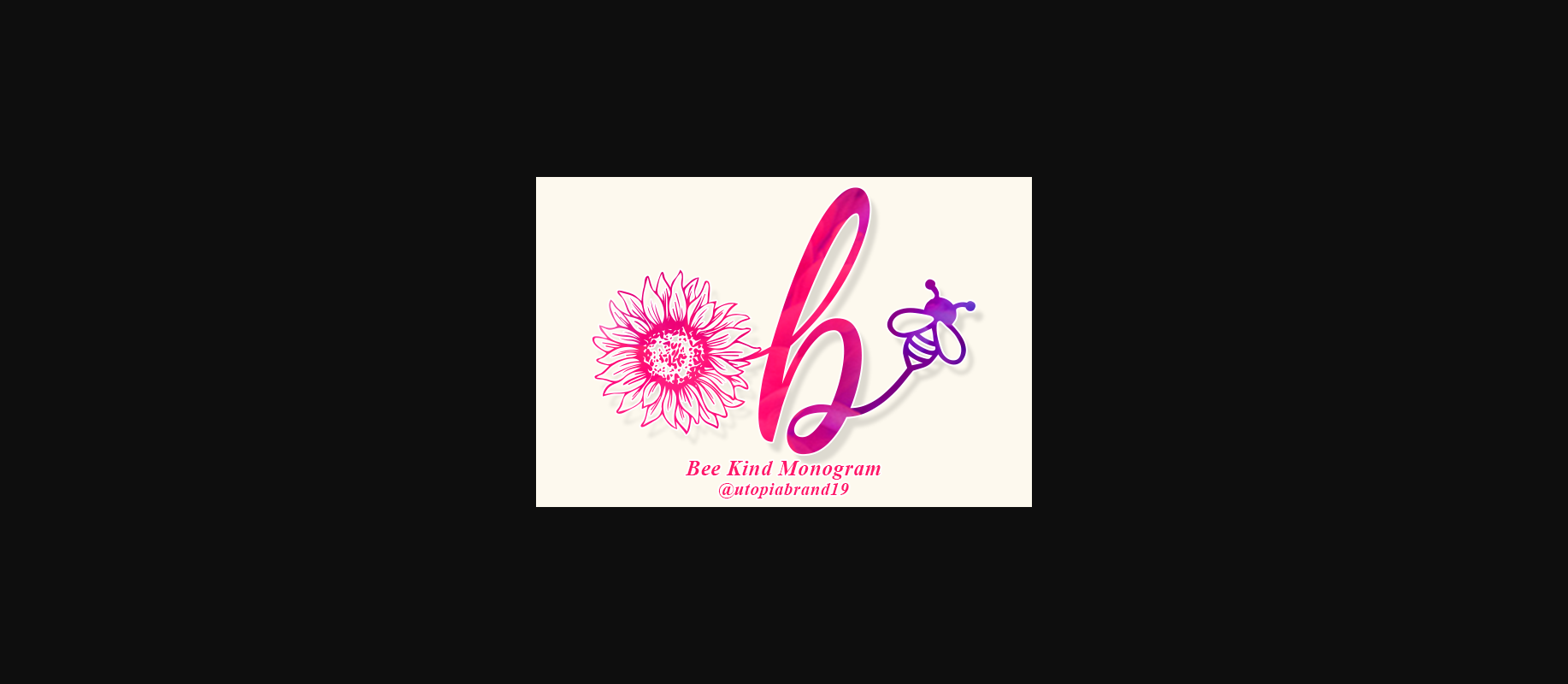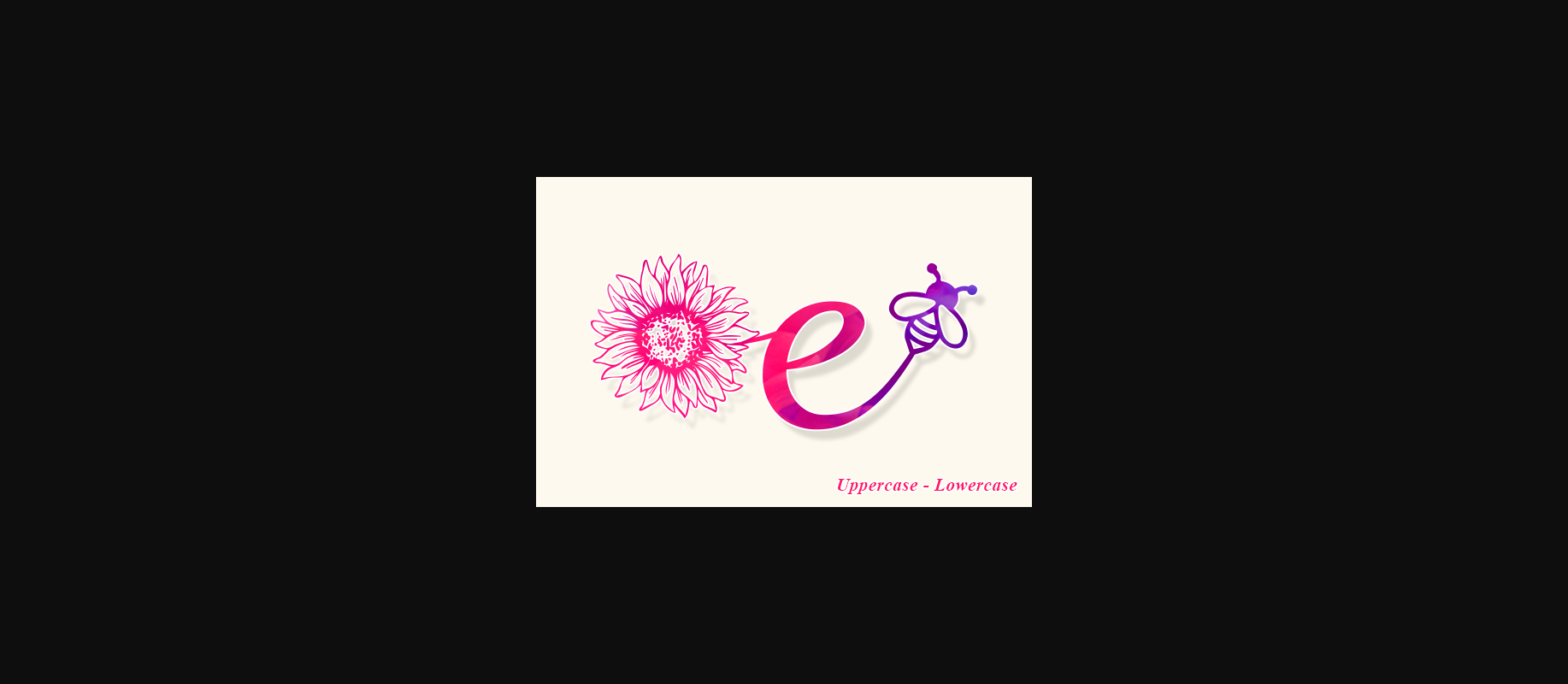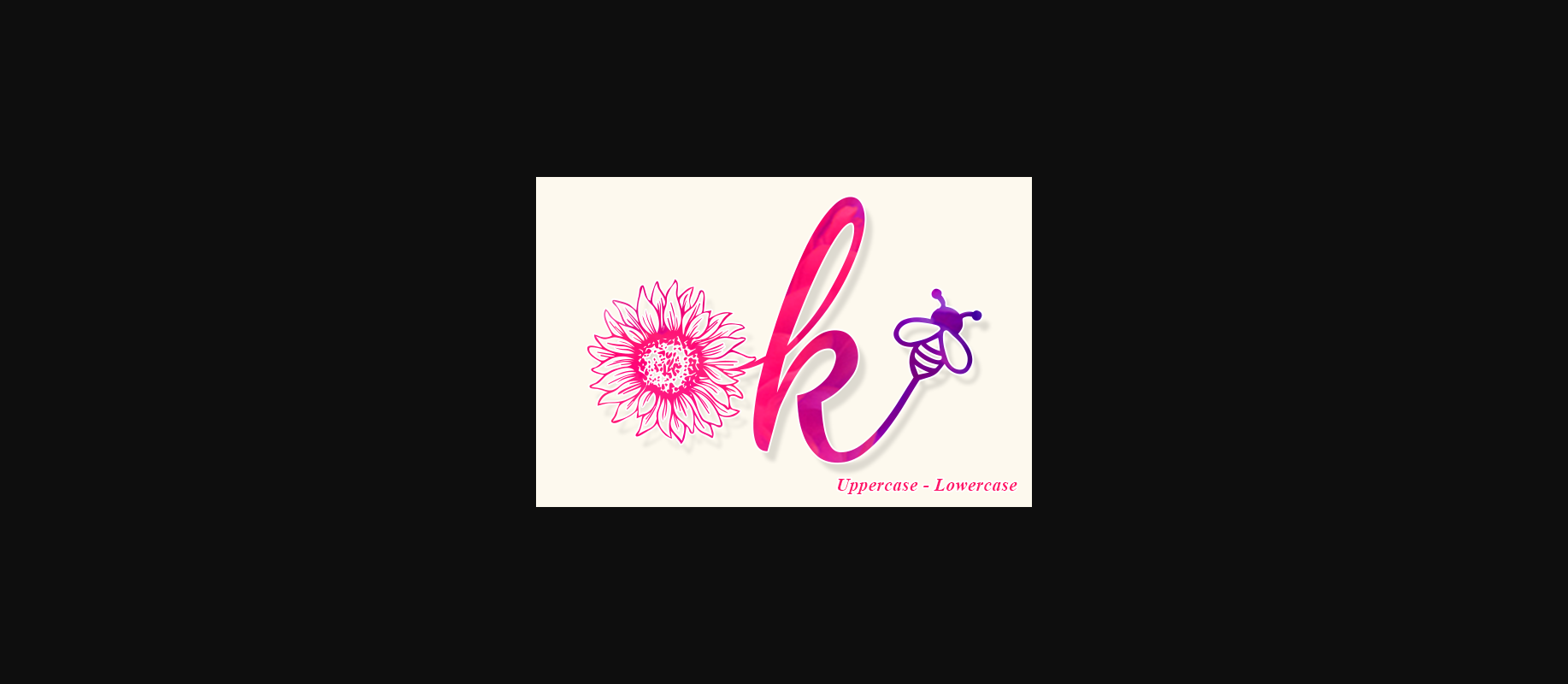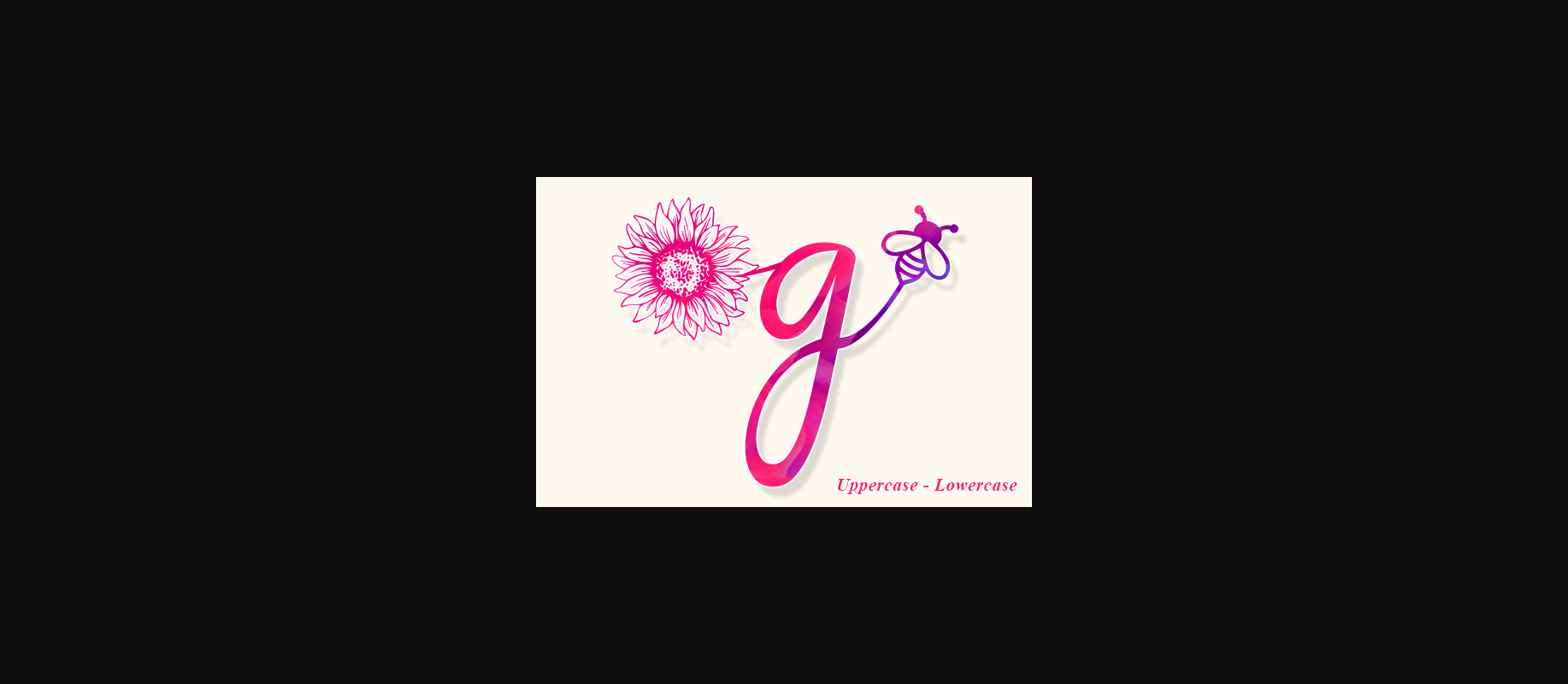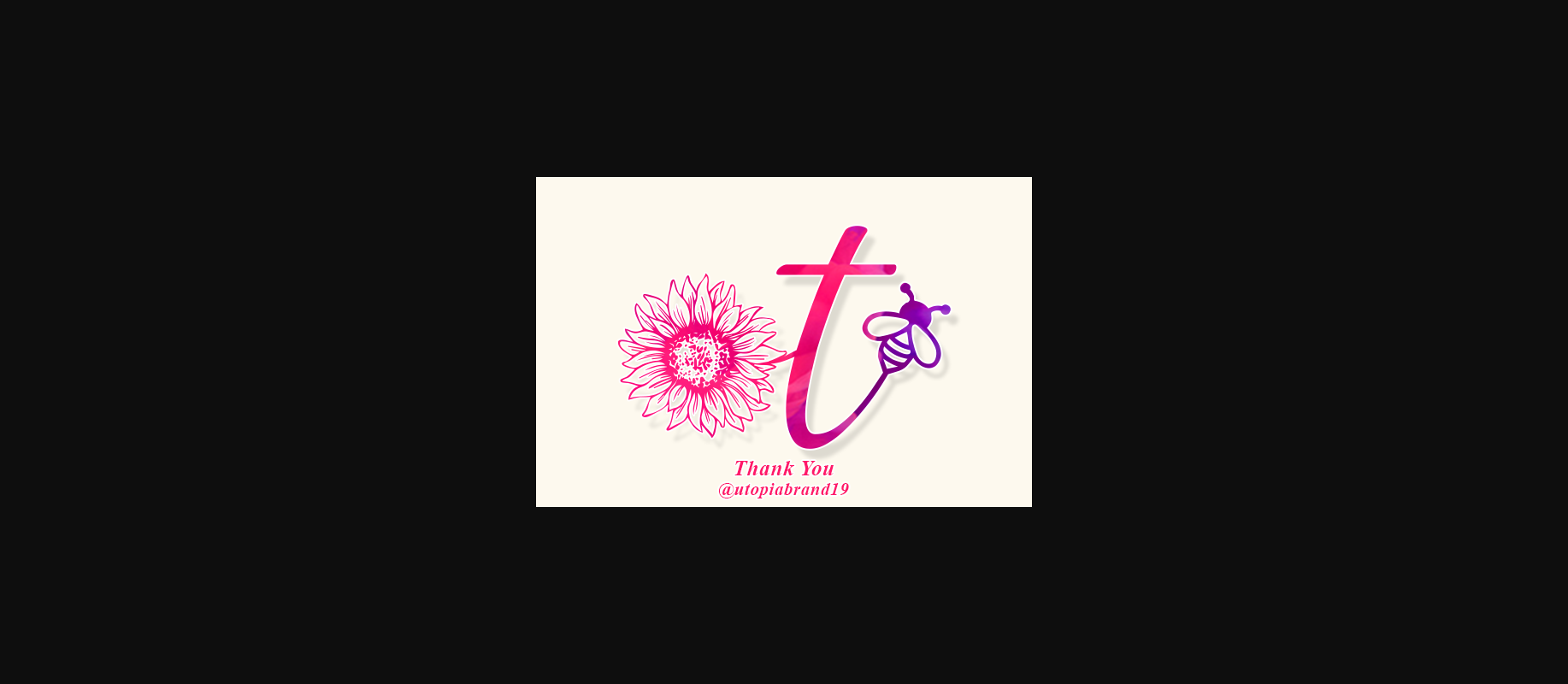
About Bee Kind Monogram Font
Immerse yourself in the enchanting charm of Bee Kind Monogram, a whimsically decorative font that’s brimming with personality. Its intricate design captures authenticity that effortlessly breathes life into your creations. From elegant wedding invitations to artful stationery, Bee Kind Monogram makes every word a work of art. Its allure extends to the realm of social media posts too, offering an eye-catching style that captivates your audience. Or use it to add a dash of sophistication to your greeting cards, making each sentiment truly one-of-a-kind. Bee Kind Monogram is more than just a font; it’s a touch of magic for all your design needs.